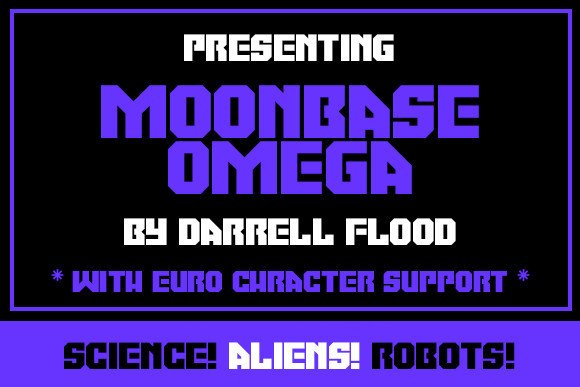
Moonbase Omega Display Font
Moonbase Omega Display Font is an angular sci-font in a high impact, ultra-bold style. Perfect for alien invasions and futuristic projects!